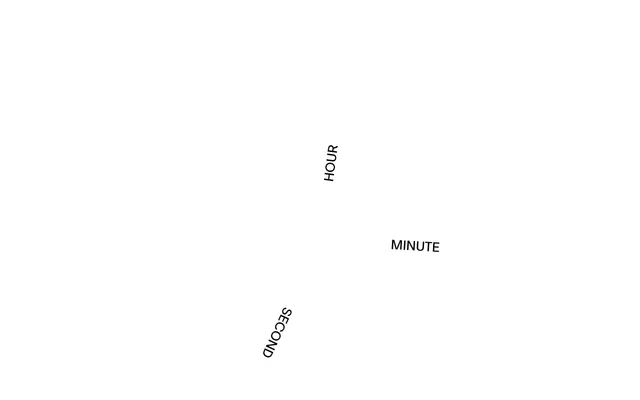
A 26-style grotesque sans spanning 13 weights from Hairline to Black, with a notable Skeleton cut at the extreme end of the range.
Lambert covers an unusually broad weight spectrum, running from Hairline and Skeleton through to Black, with italic counterparts for each weight. Five stylistic sets offer alternate character options, and features such as tabular figures and case-sensitive punctuation are included across the family. The range makes it adaptable across editorial, identity and display contexts where weight contrast is a primary design tool.
Lambert presents as a contemporary grotesque sans-serif with a wide weight range from Hairline to Black, including a distinctive Skeleton style. The clean, upright roman and matching italics are characteristic of neo-grotesque or refined grotesque traditions.